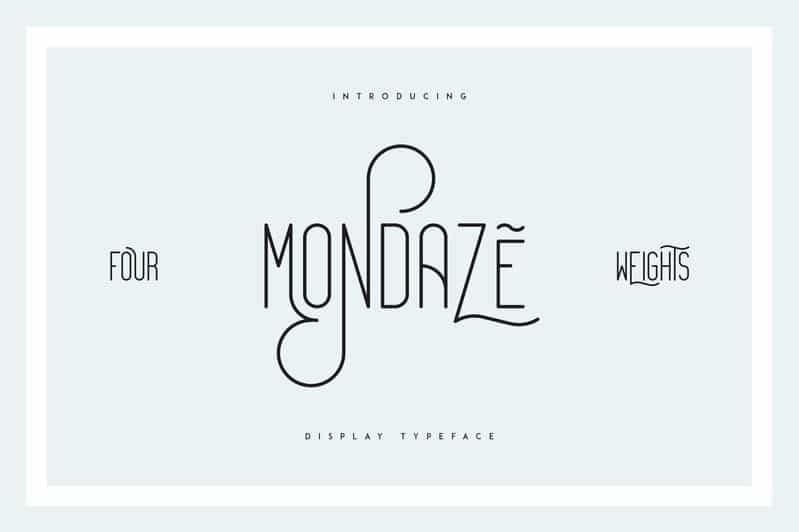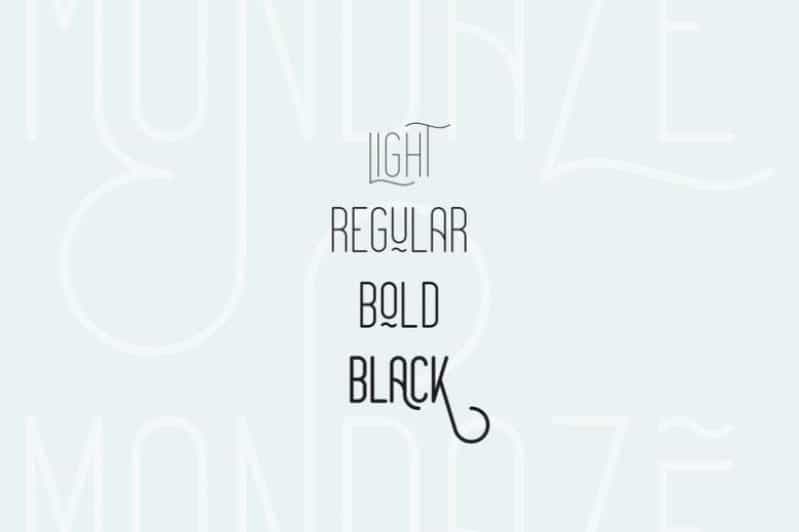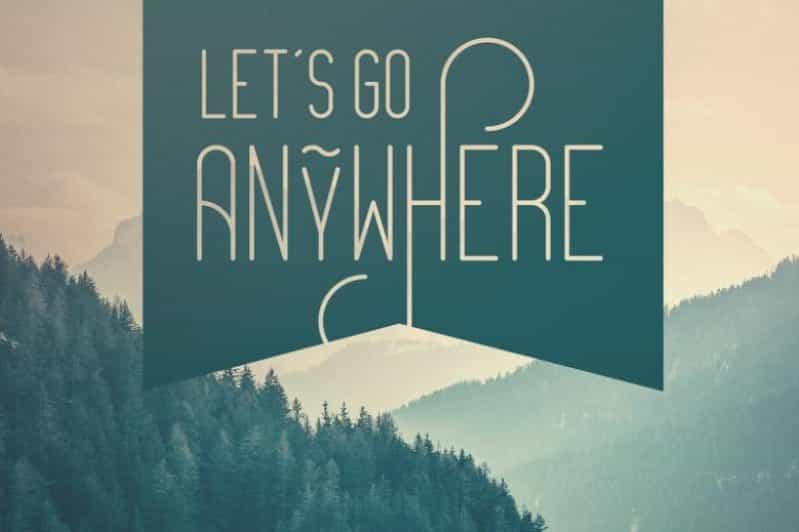
Discover Mondaze Font, part of the Sans Serif Display Monoline collection—a versatile and unique font perfect for adding a personal touch to your projects. Download it for free and enjoy crafting designs with style, from invitations to social media posts. This font is available exclusively for personal use, giving you the freedom to create without limits. Unlock your creativity with Mondaze Font today!
Mondaze is a clean, rounded font with four weights, a plethora of alternates and supports most languages of the world. It’s a very useful font that can be easily used with large and small sizes. This pack is ideal for branding projects, home-ware designs, product packaging, magazine headers, or as a simple text over any photograph.